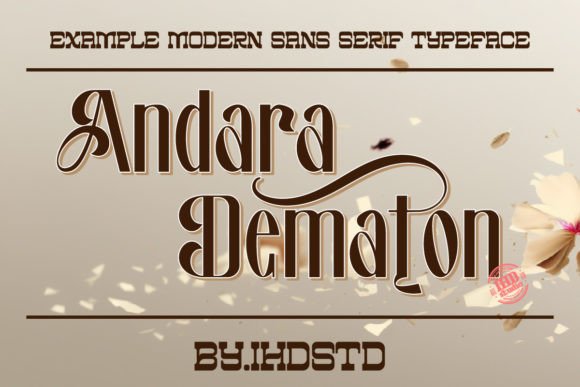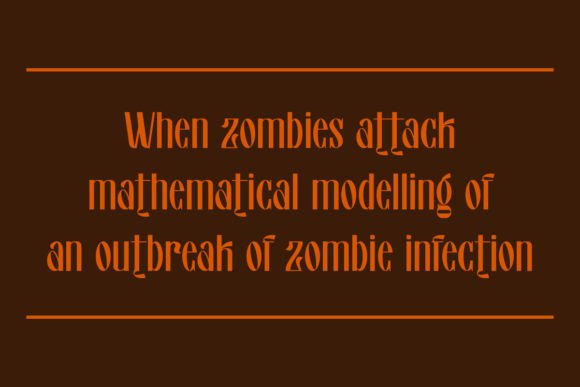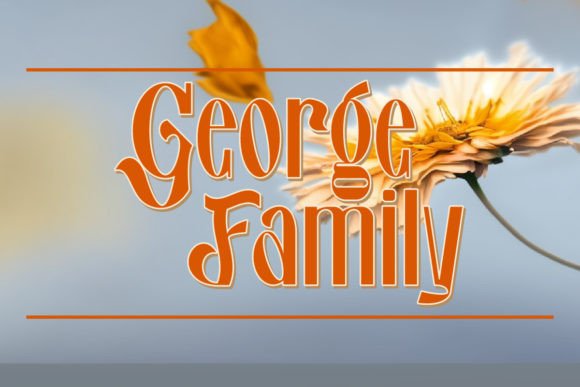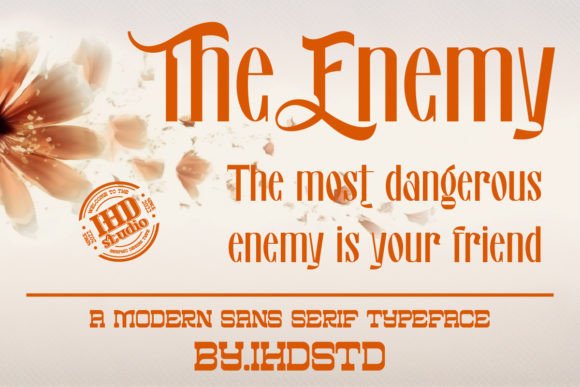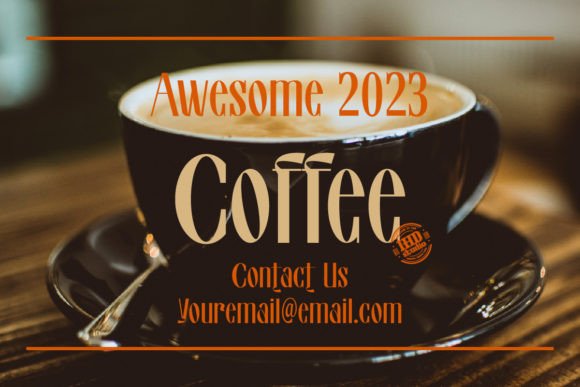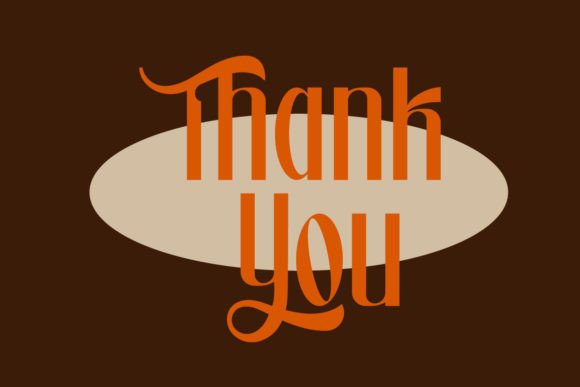
Introduction to Lavonte Font Font
Fonts play a crucial role in design, and the Lavonte Font font is a typeface that brings both character and versatility to any project. Whether you’re working on a branding project, a website, or a print design, the Lavonte Font font offers a unique style that can elevate your work.
This sans-serif font is the epitome of exclusivity and distinction, featuring bold lines and carefully crafted details that make it stand out from the crowd.
Its sleek and modern appearance is perfect for logos, headlines, and other design projects that demand attention A must-have for designers who want to make a bold statement with their typography.
Key Features of Lavonte Font Font
Why Choose Lavonte Font Font?
The Lavonte Font font is more than just a typeface – it’s a design tool that helps you communicate your message with style and clarity. Its unique character set and versatile design make it suitable for a wide range of applications, from elegant invitations to bold headlines.
With its carefully crafted letterforms and balanced proportions, the Lavonte Font font ensures readability and visual appeal across all mediums.
What makes Lavonte Font font special?
The Lavonte Font font stands out with its unique design, exceptional readability, and versatility across various design applications.